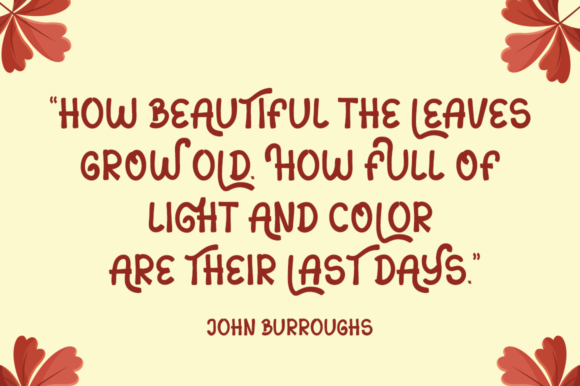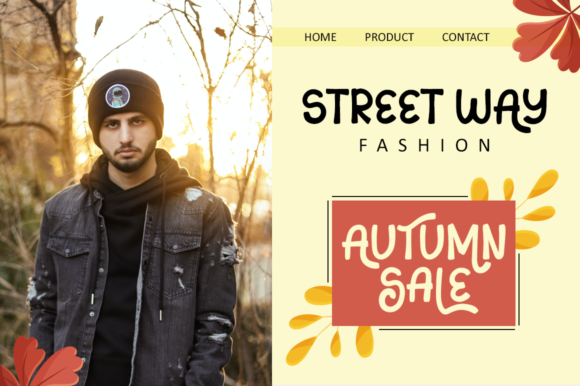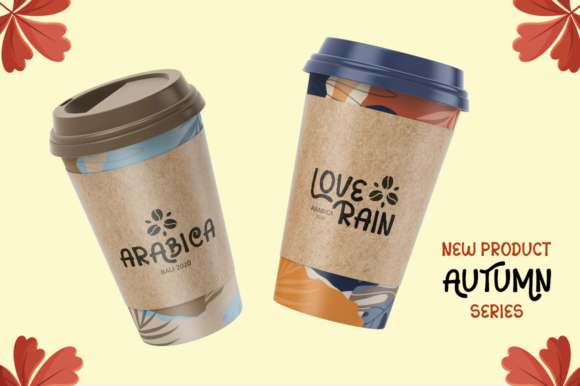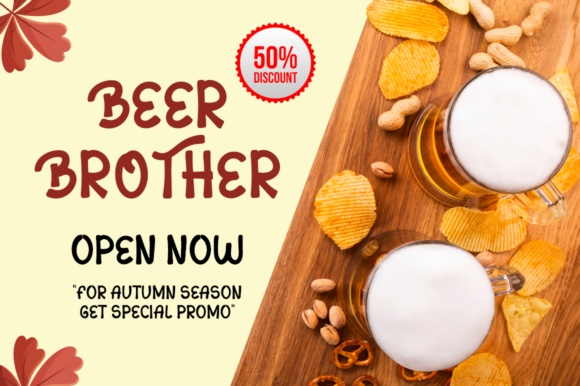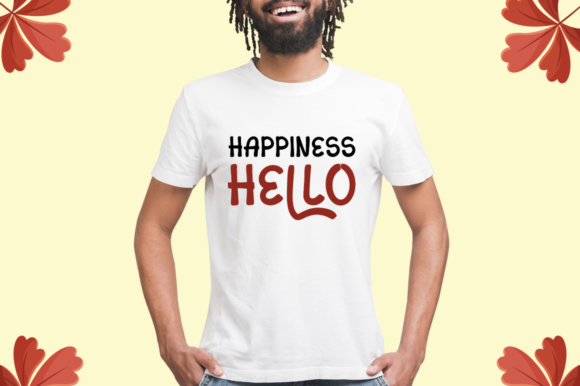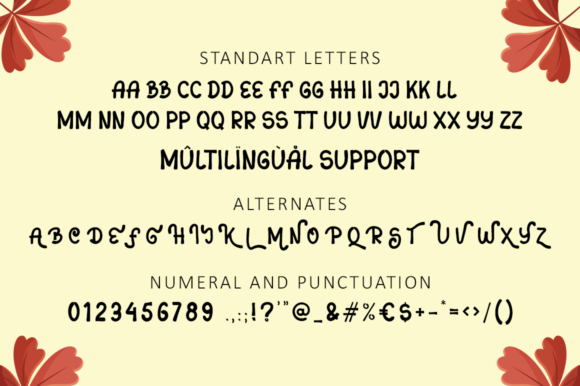
Introduction to Sans Autumn Font
Sans Autumn is a cute and friendly display font.
This enchanting display font will turn any creative ideas into a true standout Get creative with its unique playfulness, and use it to brighten up any crafting project such as quotes, product promotion, website, logotype, merchandise and more.